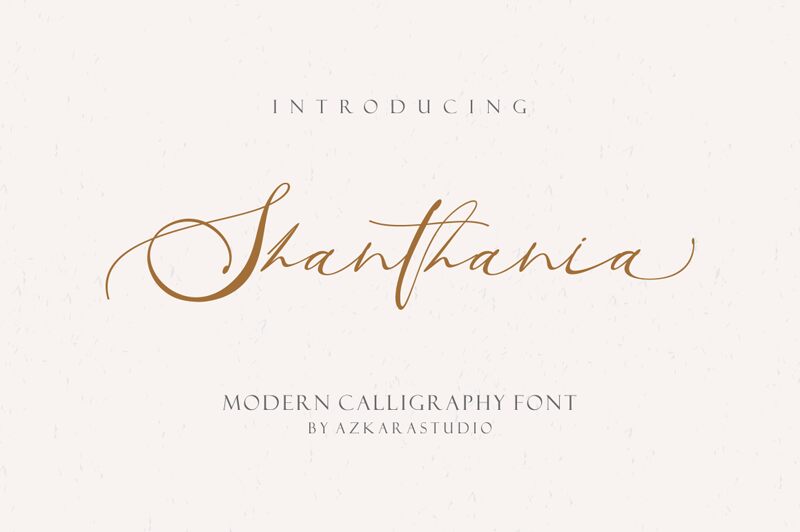
Introducing Santhania, the modern calligraphy font designed by AzkaraStudio. Its light weight and elegant strokes make it perfect for a wide range of projects, from wedding invitations to social media graphics. The fluid curves and loops of Santhania add a touch of sophistication to any design, while its clean lines ensure readability on both screen and print. Use it for branding, packaging, or even as part of your next creative project. Let Santhania's graceful letterforms bring your ideas to life with a touch of modern elegance.